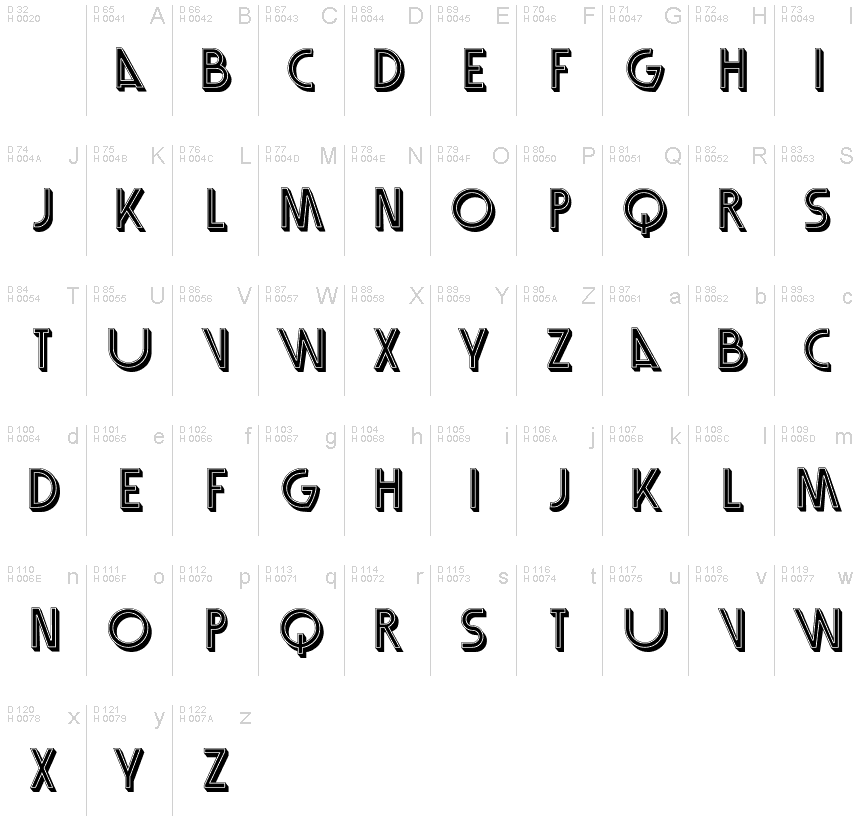
Zappara Regular
Zappara, designed by Vladimir Nikolic, is a sophisticated sans serif font with an embossed style that adds depth and dimension to any project. Its semi-light weight exudes elegance and refinement, making it perfect for creating modern and minimalist designs.
The condensed width of Zappara gives it a sleek and streamlined look, making it ideal for branding and logo design. This versatile font is also well-suited for editorial layouts, packaging design, and website headers where a clean yet impactful typography is desired.